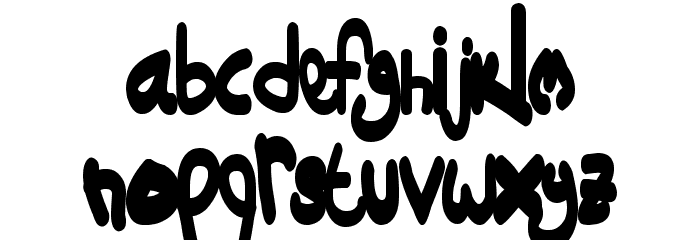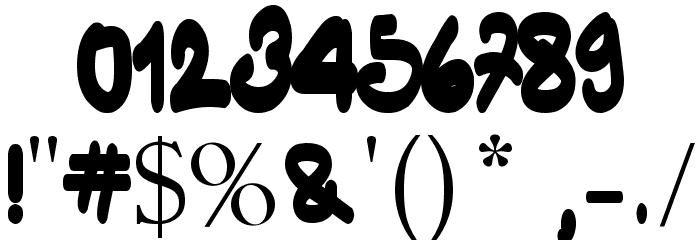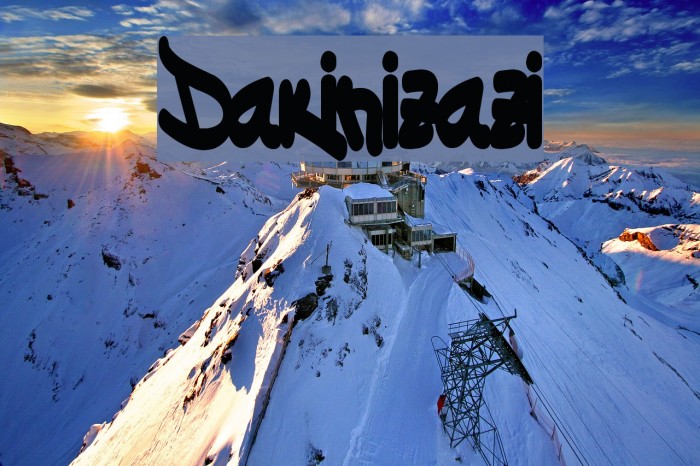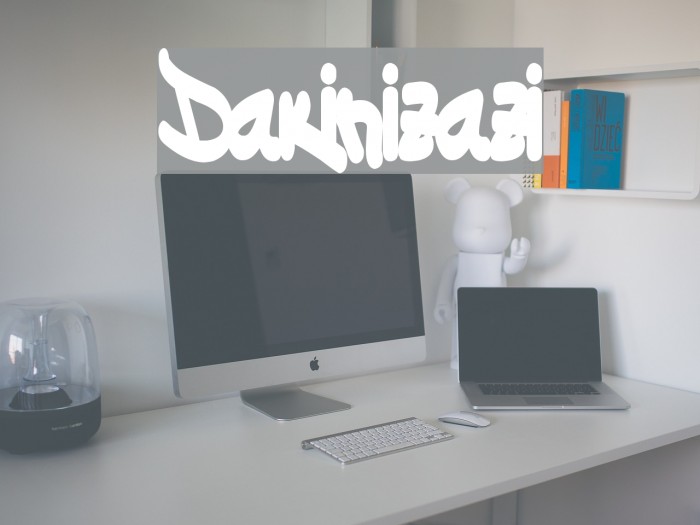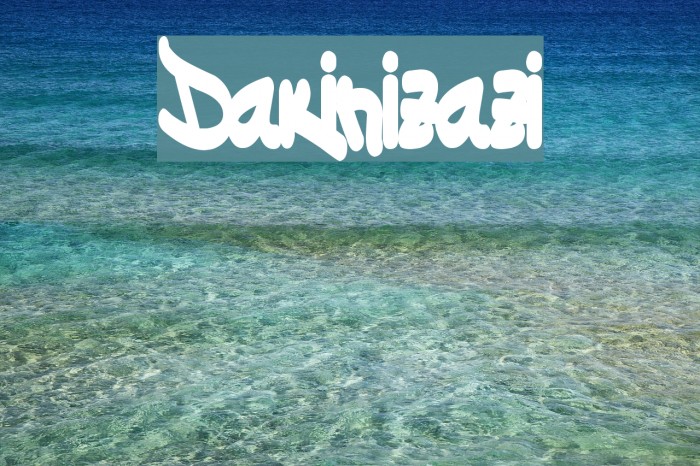
Dakinizazi Font
This font exhibits a bold, expressive style with a handwritten appearance. The characters are thick and rounded, giving a playful and casual vibe. The uppercase and lowercase letters maintain a consistent flow, with some letters featuring unique loops and curves that add to the font's charm. The numbers and special characters follow the same bold and rounded design, ensuring uniformity across all elements. This font's energetic and informal style makes it suitable for projects that require a personal touch.
A bold, playful handwritten font with thick, rounded characters.
- Proposed Projects: Ideal for greeting cards, children's books, playful branding, and casual social media graphics.
- Overall Style: Playful, Casual
- Use Case: Logos, Headlines, Informal Invitations